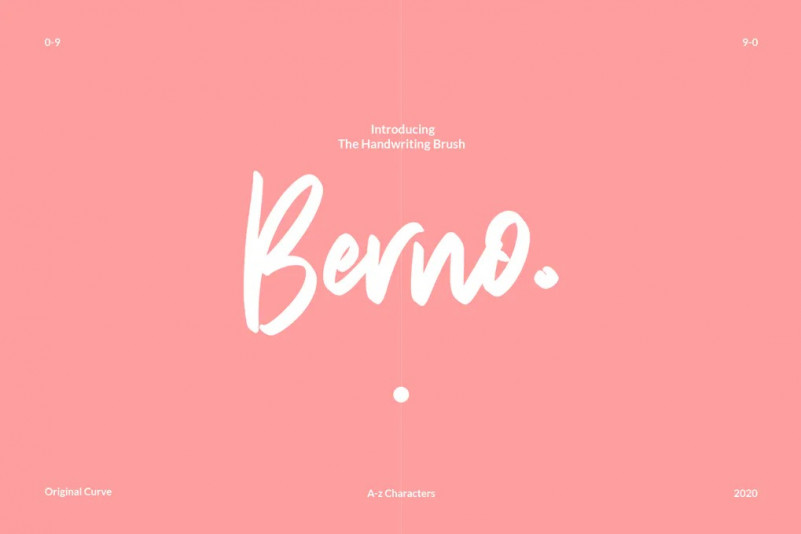
Berno Font
Berno is handwritten from a brush, the curves of each character are very original, there are no changes from handwriting to fonts.
Berno has standard characters in it, including uppercase, lowercase, numbers, punctuation and multilingual. And don’t forget, Berno also has another additional character called the OpenType Feature, which contains a Standard Ligature and two Stylistic Sets in it. Berno will make your design work more interesting, because Berno is made for something interesting.